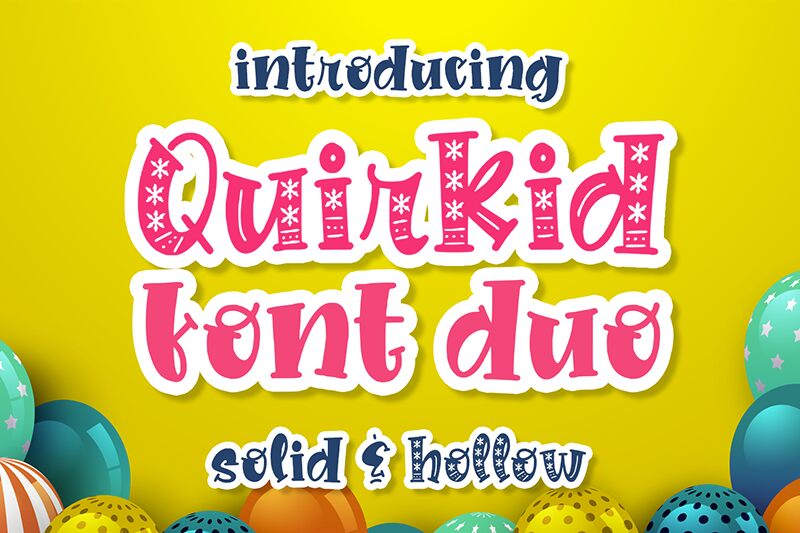
Introducing Quirkid Hollow, a bold and decorative display font from Abo Daniel's Quirkid family. Perfect for creating eye-catching posters, logos and other artwork, Quirkid Hollow is an ideal choice to add a touch of personality to any project. Its unique style will add a spark of originality to your designs and captivate your audience. You won't find another font quite like it!
Quirkid Hollow